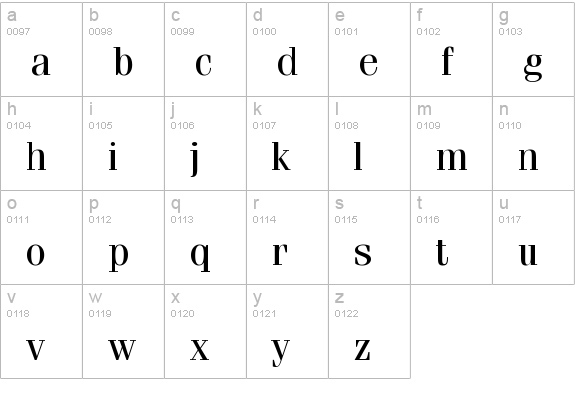
Compendium Book SSi Book is a comfortable, highly readable variant in the Compendium typeface family \xE2\x80\x94 well suited to long-form body text, articles, and editorial content.
Compendium Book SSi Book font is a timeless and elegant typeface that exudes sophistication and class. With its clean lines and classic design, this font is perfect for a wide range of projects, from elegant invitations to professional documents. What sets Compendium Book SSi Book font apart is its versatility and readability, making it a top choice for designers and creatives alike. Whether you're working on a branding project or designing a magazine layout, this font will bring a touch of refinement to your work. Best of all, Compendium Book SSi Book font is completely free to download at FontsMarket.com. So you can elevate your designs without breaking the bank. Don't miss out on the opportunity to add this stunning font to your collection today!